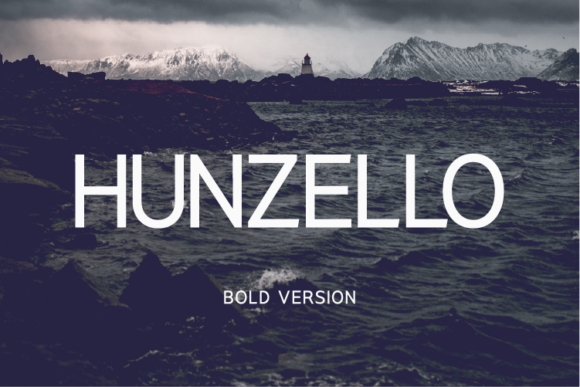
Introducing Hunzello Bold Font: An Oasis of Simplicity and Sophistication
In a digital realm saturated with visual noise, Hunzello Bold Font emerges as a sanctuary of minimalism, offering an undeniably clean aesthetic that captivates and delights. Crafted by the visionary minds at Huntype, this sans serif masterpiece embodies the essence of contemporary design, seamlessly blending form and function to elevate your creative endeavors.
With its crisp, geometric letterforms and impeccable spacing, Hunzello Bold exudes an aura of understated elegance. Its unwavering commitment to simplicity allows your content to take center stage, ensuring that your message is conveyed with clarity and impact. Whether you're crafting elegant logos, eye-catching headlines, or captivating website designs, Hunzello Bold serves as the perfect canvas for your artistic expression.
Step into a realm of design possibilities with Hunzello Bold, where minimalism meets versatility. Its inherent adaptability effortlessly complements a wide spectrum of creative projects, from formal corporate presentations to playful personal branding. Unleash your imagination and explore the boundless potential that awaits, knowing that Hunzello Bold will rise to any challenge with grace and refinement.
Embrace the power of simplicity and elevate your designs to new heights with Hunzello Bold. Its clean lines and unwavering focus on legibility ensure that your message will be received with crystal-clear clarity. Allow your words to dance across the page, carried by the understated beauty of this modern sans serif font.
Hunzello Bold: A Symphony of Visual Harmony
Hunzello Bold is not merely a font; it's a symphony of visual harmony, a testament to the transformative power of design. Its meticulously crafted characters dance in perfect unison, creating a visual rhythm that draws the eye and captivates the senses. Experience the sheer joy of designing with a font that harmonizes effortlessly with your creative vision, allowing your ideas to flow freely and seamlessly.
Immerse yourself in the world of Hunzello Bold and discover a font that transcends the ordinary. Its minimalist aesthetic invites you to explore the depths of your creativity, pushing the boundaries of design with each stroke of the keyboard. Embrace the allure of simplicity and let Hunzello Bold guide you towards design excellence.